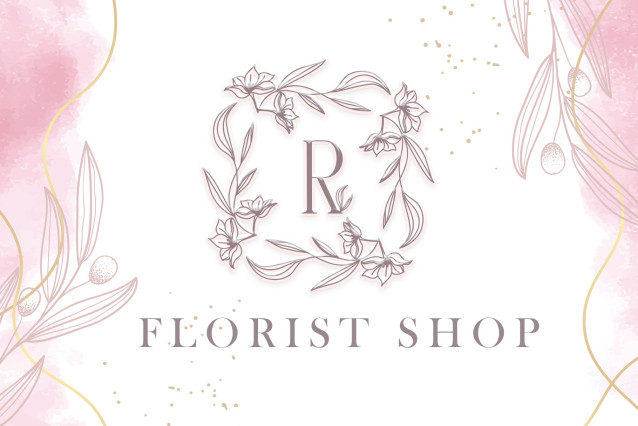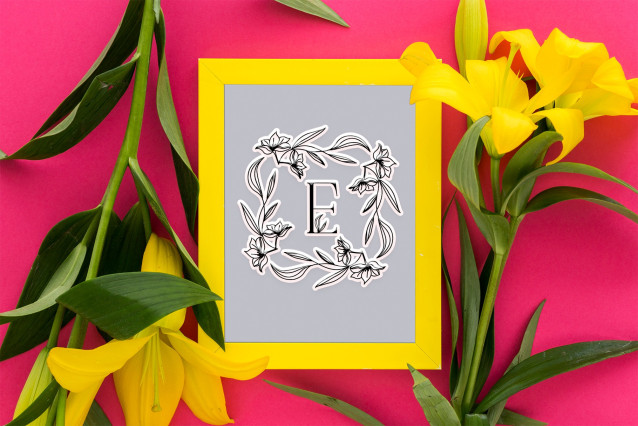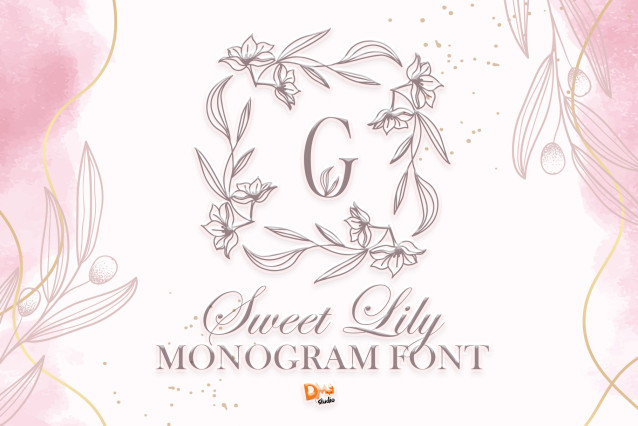
Sweet Lily Monogram Font
Sweet Lily Monogram is a graceful and refined font inspired by the soft elegance of lily flowers. Its gentle curves and botanical flourishes make it ideal for monograms, wedding invitations, personal branding, feminine logos, and delicate stationery. Whether you’re creating a romantic design or a classy nameplate, this typeface adds an extra layer of charm and sophistication.